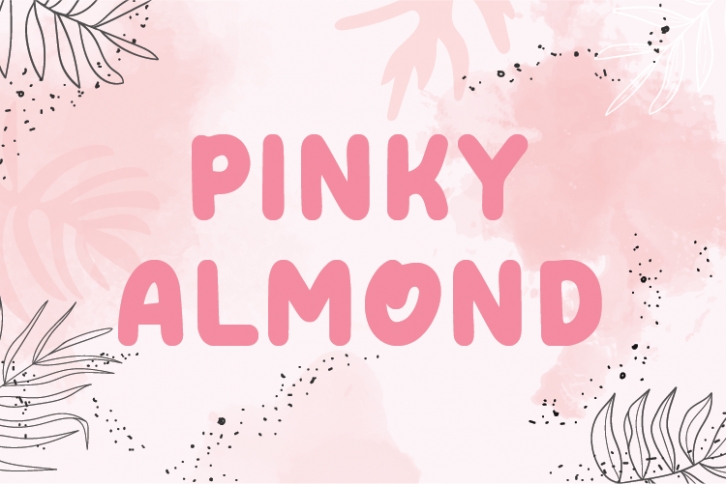
Pinky Almond is a natural handwritten font without changing a single node in each character’s indentation, this makes this font very interesting and unique. Perfect for quotes, notes, tees, and any product design.